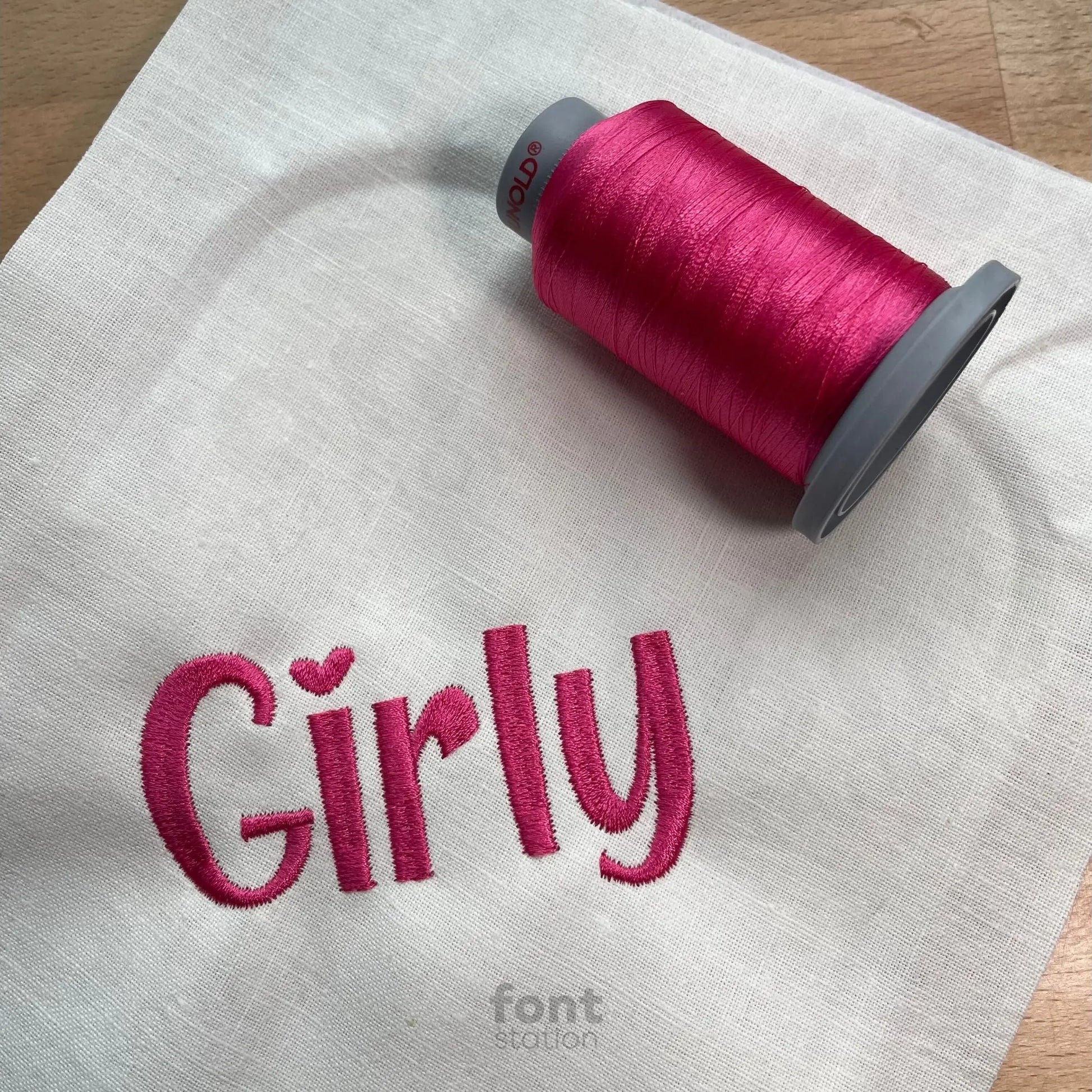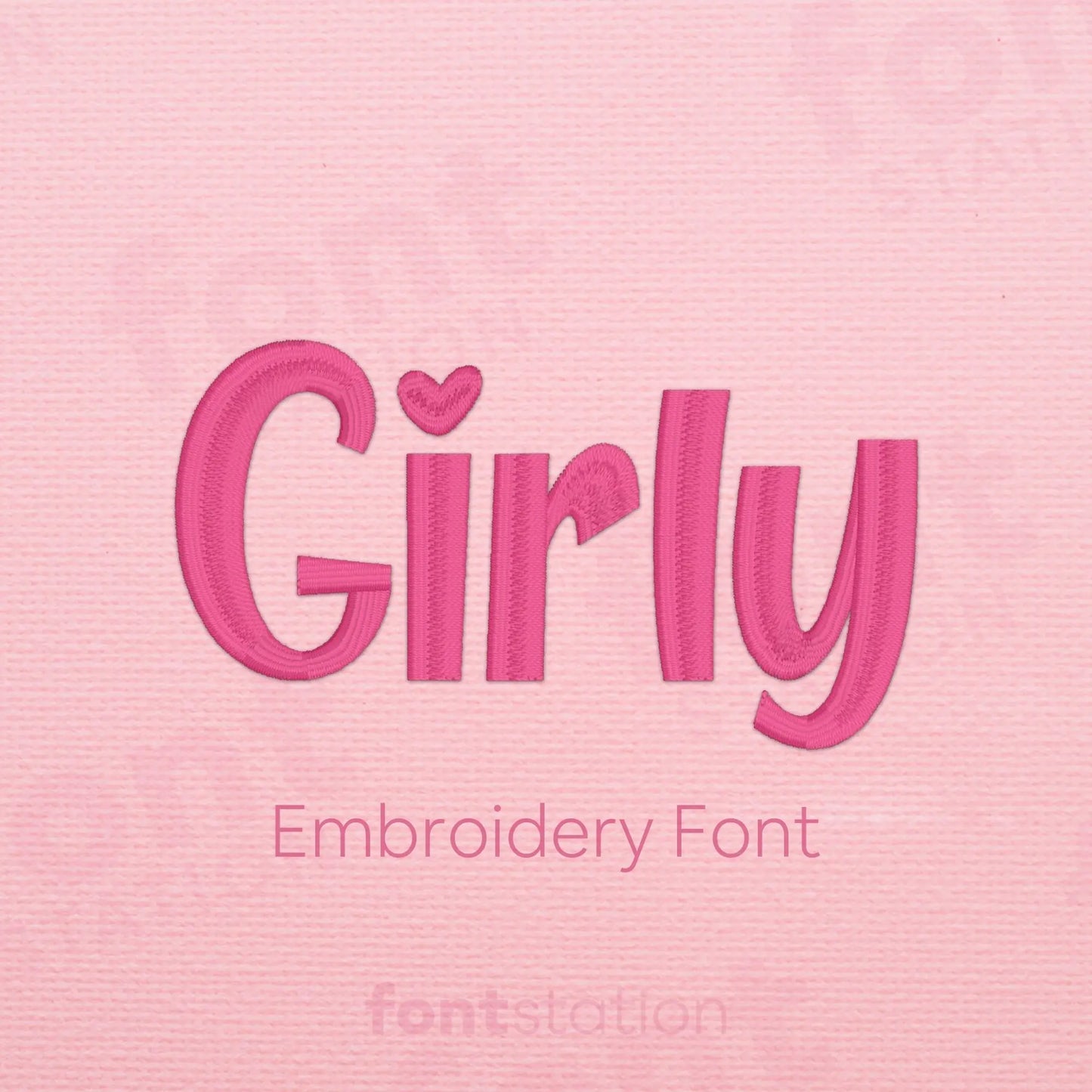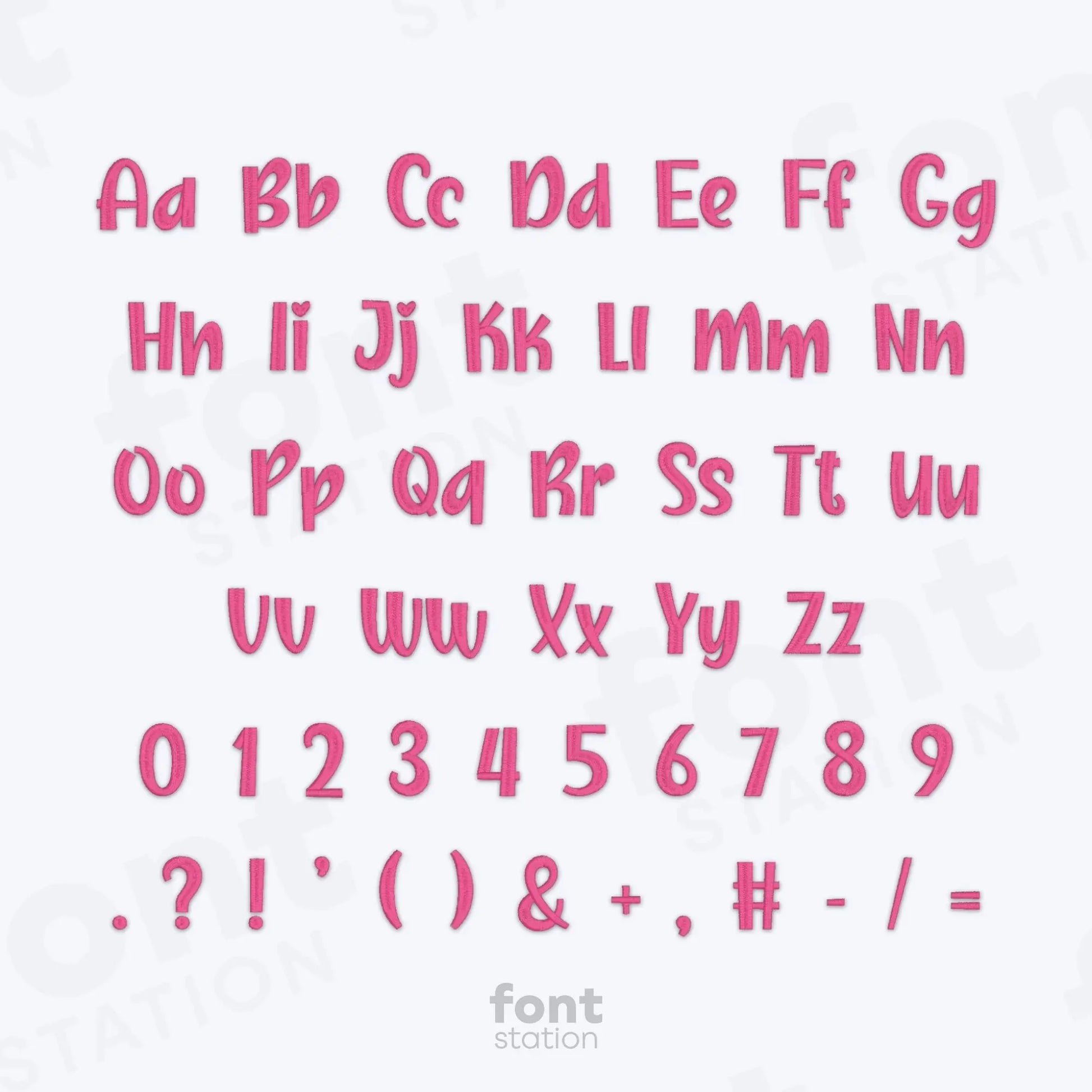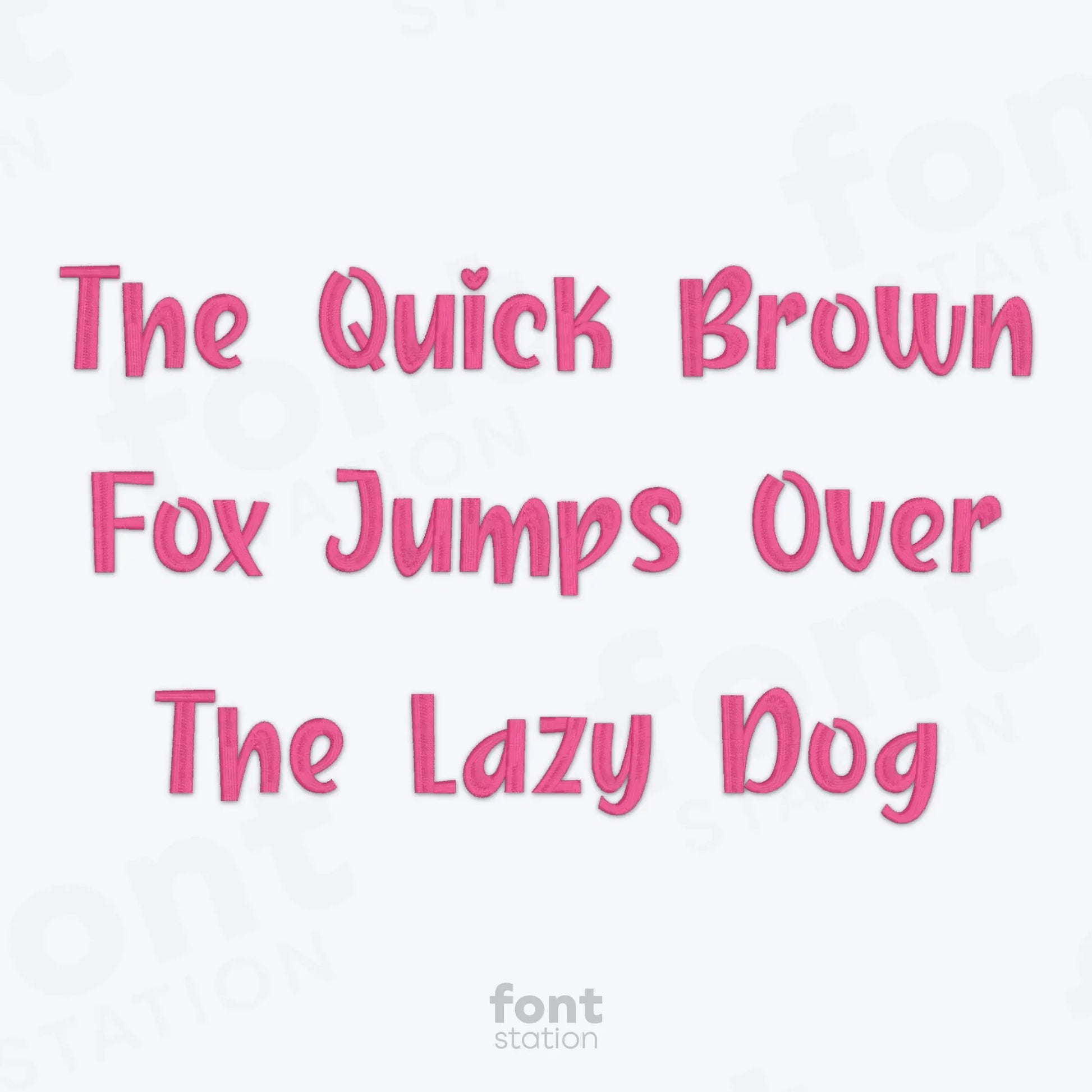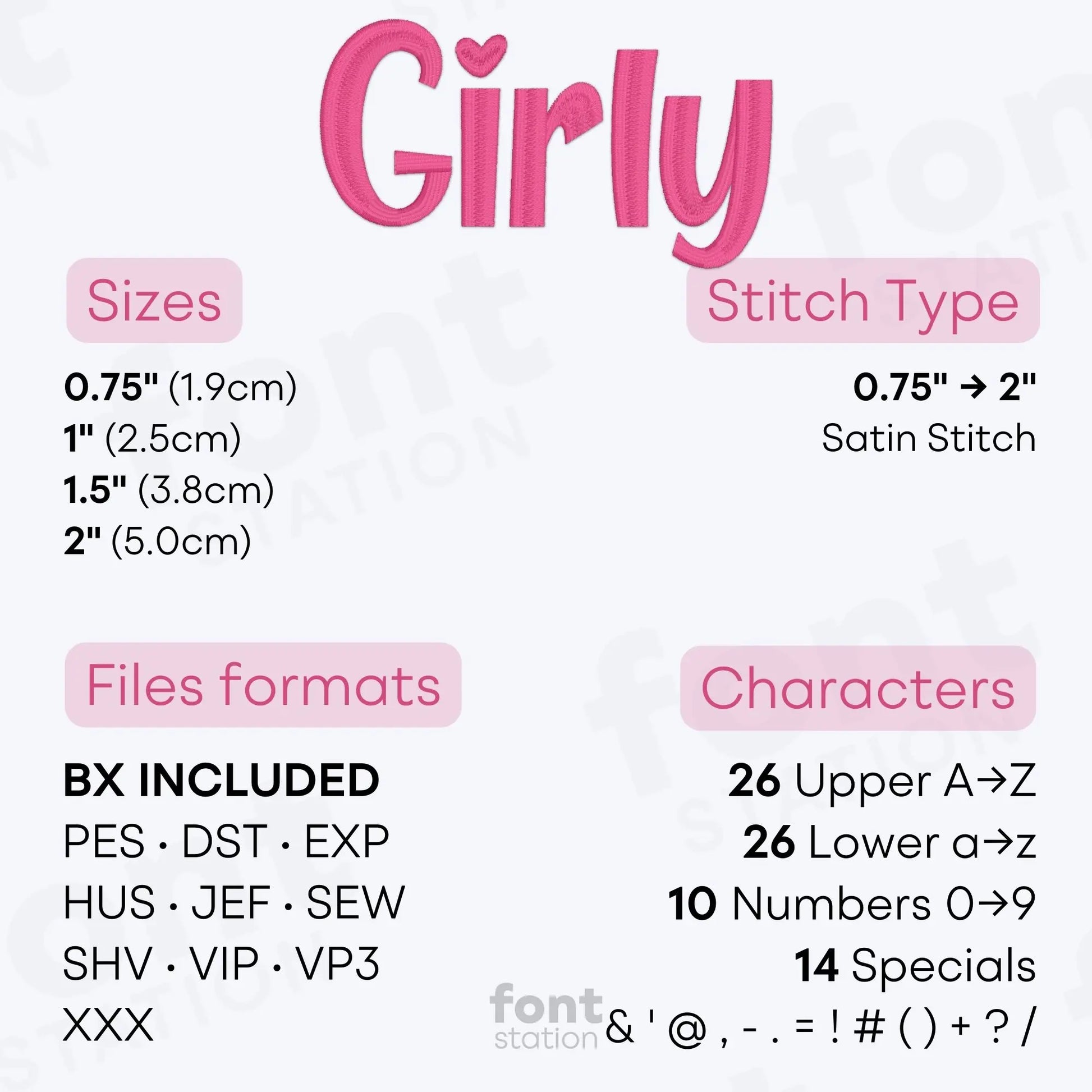
Girly Embroidery Font
Introducing our Girly embroidery font - a playful, bold sans serif alphabet perfect to stitch sweet letters onto your next project. This font is ideal for princess-themed designs and personal gifts, and works smoothly with your embroidery machine on all your custom creations. .
About the Girly Embroidery Font
Our Girly embroidery font brings a sweet, playful touch to your embroidery projects.
The Girly embroidery font features a clean sans serif alphabet with adorable details - like a heart dotting the letter "i" - making it perfect for princess themes, birthday outfits, and personalized gifts. With clean lines and a friendly, modern feel, these embroidery letters are ideal for names, quotes, or custom designs that call for something sweet and playful. Digitized for smooth results, this embroidery font includes BX, PES, DST, JEF, EXP, VP3, HUS and more, and stitches beautifully on any embroidery machine.
Why choose our Girly Embroidery Letters?
How to use this Girly Embroidery Alphabet?
Unlimited ways to use our Girly Embroidery Font